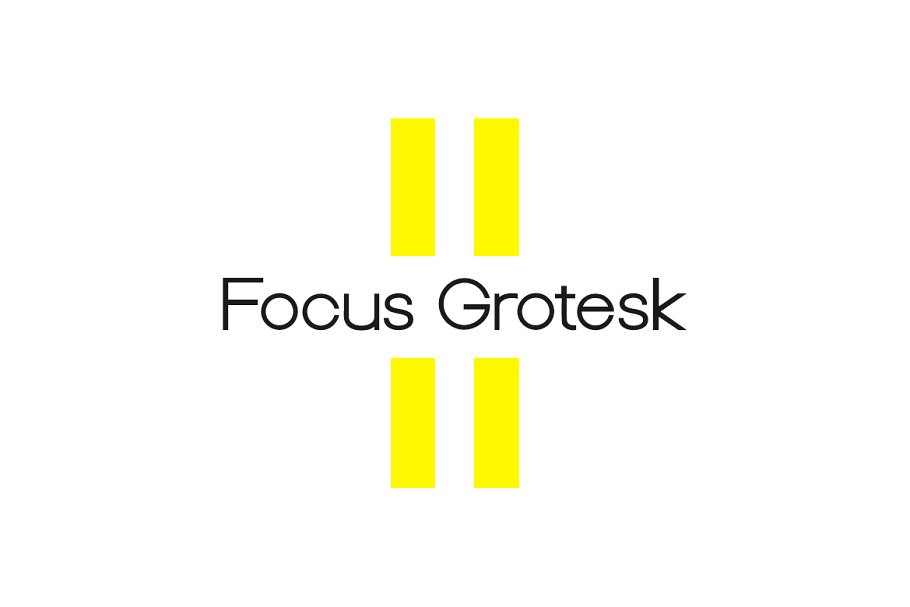
Focus Grotesk Font
Focus Grotesk Font is perfect for productivity consulting firms, concentration training programs, mindfulness coaching services, attention management platforms, laser-focused tech companies, and goal achievement organizations. Its concentrated character makes it ideal for meditation apps, study enhancement tools, performance optimization services, executive coaching firms, efficiency consulting agencies, and any project requiring mental clarity with precision focus and concentrated excellence.
This font is exciting because it embodies the power of sustained attention and mental clarity while delivering exceptional functionality for organizations dedicated to improving human performance and cognitive excellence. The precisely engineered letterforms reflect the discipline and systematic approach required for achieving focused results, creating typography that inspires concentration and motivates audiences seeking to eliminate distractions and achieve peak performance.
The Focus Grotesk Font family typically includes Light, Regular, Medium, and Bold weights with concentrated alternates, precision-focused ligatures, and clarity elements that enhance its disciplined personality. This comprehensive collection provides performance professionals with systematic tools for creating authoritative brand systems that maintain focus credibility while offering flexibility for various productivity applications requiring mental discipline and achievement-oriented positioning.
Whether you're developing identity systems for productivity companies, creating materials for concentration training programs, or designing interfaces for focus enhancement platforms, Focus Grotesk Font Free Download delivers the mental clarity and systematic precision that resonates with audiences seeking improved performance and concentrated results. Its commanding presence ensures professional recognition across digital platforms and print materials, making it perfect for websites, mobile applications, and productivity campaigns that celebrate mental discipline, focused achievement, and the transformative power of sustained attention with contemporary performance standards and uncompromising clarity excellence.